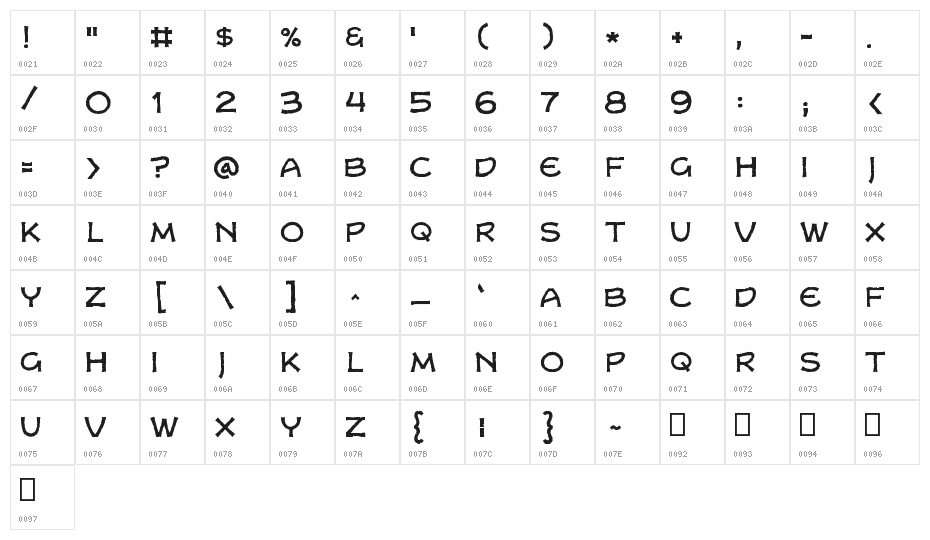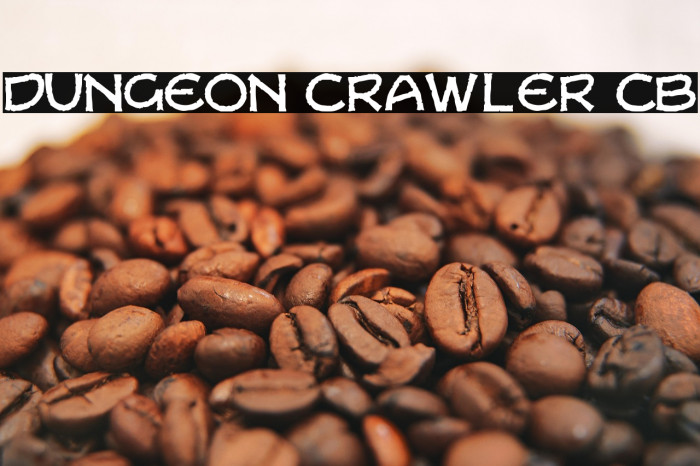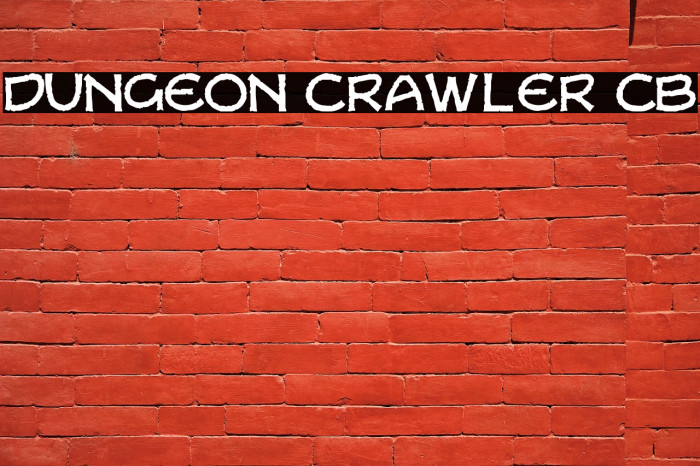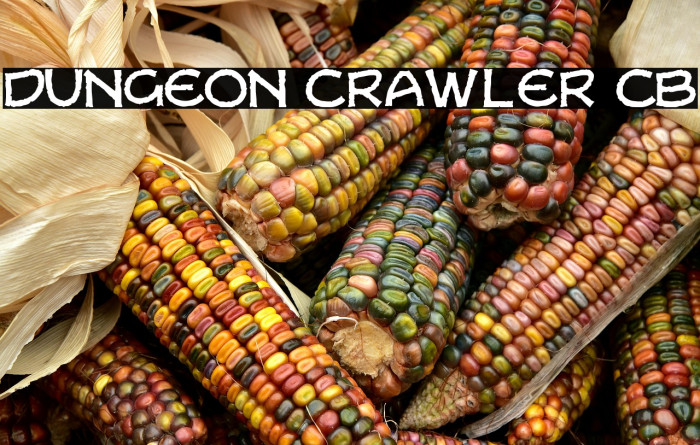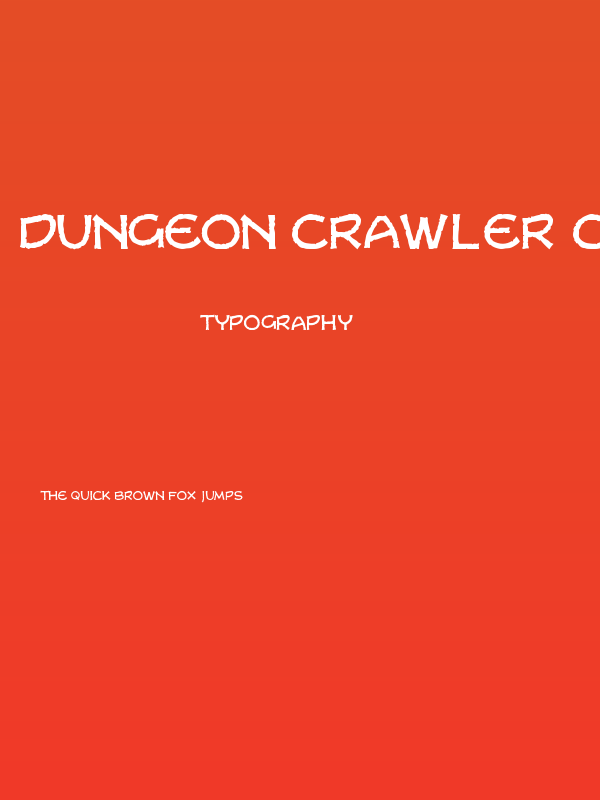
Dungeon Crawler CB Font
Dungeon Crawler CB Description
This font features a rugged, hand-drawn style that evokes a sense of adventure and fantasy. The characters are bold and slightly irregular, giving them a dynamic and energetic appearance. The strokes are thick and uneven, adding to the hand-crafted feel. The font includes a full set of uppercase and lowercase letters, numbers, and a variety of special characters, making it versatile for different uses. Its unique style is reminiscent of medieval or fantasy themes, making it ideal for projects that require a touch of the fantastical.
| Overall Style | Fantasy, Adventure |
| Proposed Projects | Perfect for game titles, fantasy book covers, posters, and themed event invitations. |